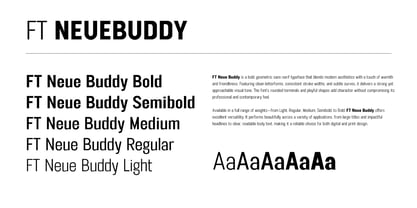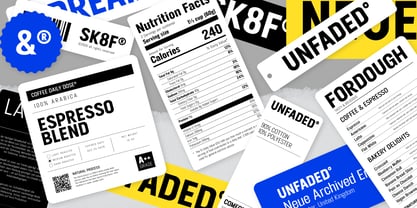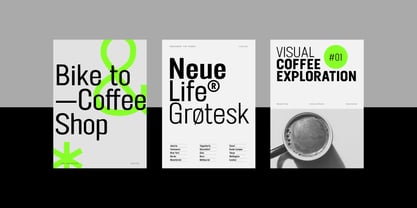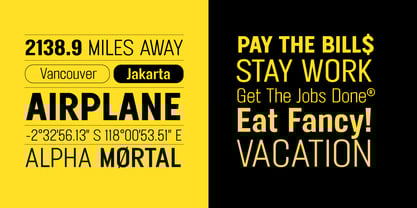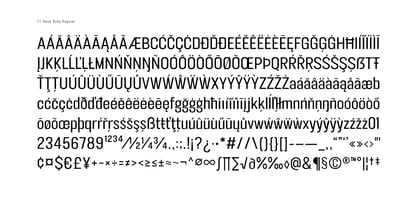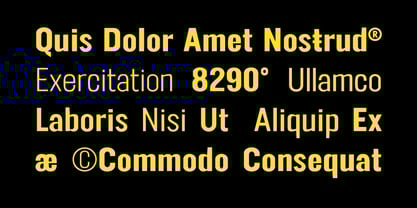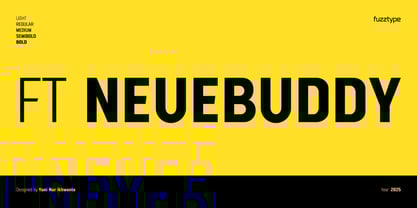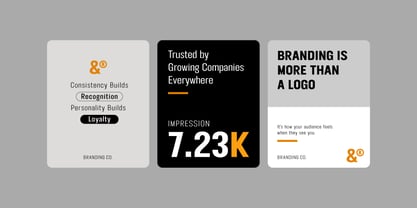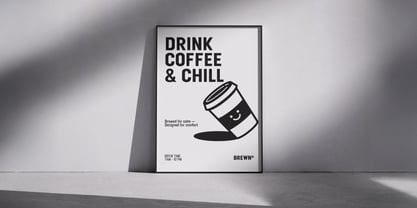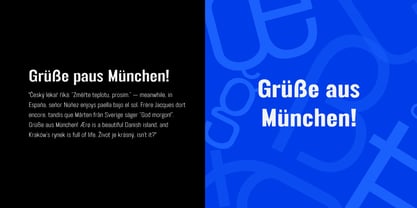
FT Neue Buddy
von Fuzztype
Die Schriftfamilie FT Neue Buddy wurde von Yuni Nur Ikhwanto entworfen und von Fuzztype veröffentlicht. FT Neue Buddy enthält 6 Stile und Familienpaketoptionen.
FT Neue Buddy is a geometric sans-serif typeface that blends modern aesthetics with a touch of warmth and friendliness. Featuring clean letterforms, consistent stroke widths, and subtle curves, it delivers a strong yet approachable visual tone. The font’s rounded terminals and playful shapes add character without compromising its professional and contemporary feel.
Available in a full range of weights—from Light, Regular, Medium, Semibold, to Bold. FT Neue Buddy offers excellent versatility. It performs beautifully across a variety of applications, from large titles and impactful headlines to clear, readable body text, making it a reliable choice for both digital and print design.